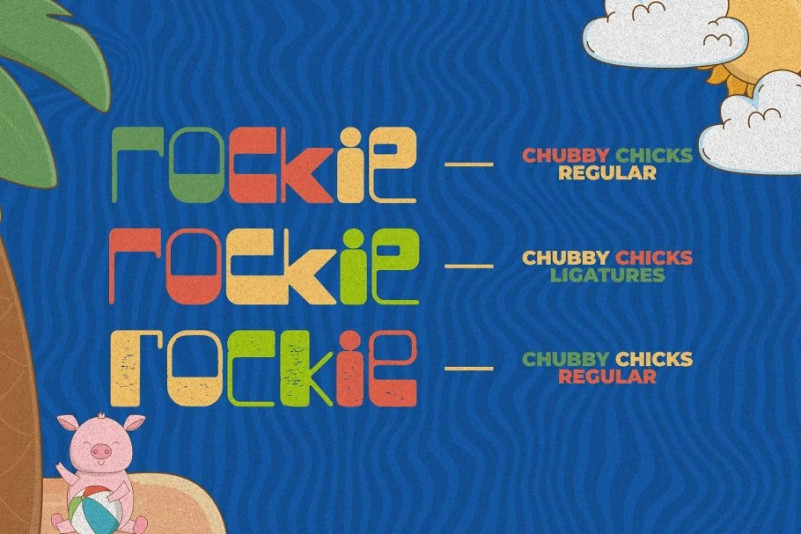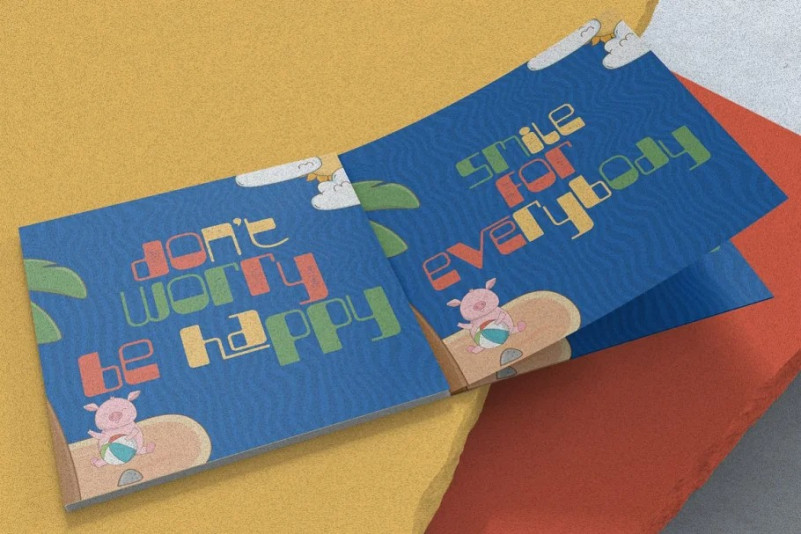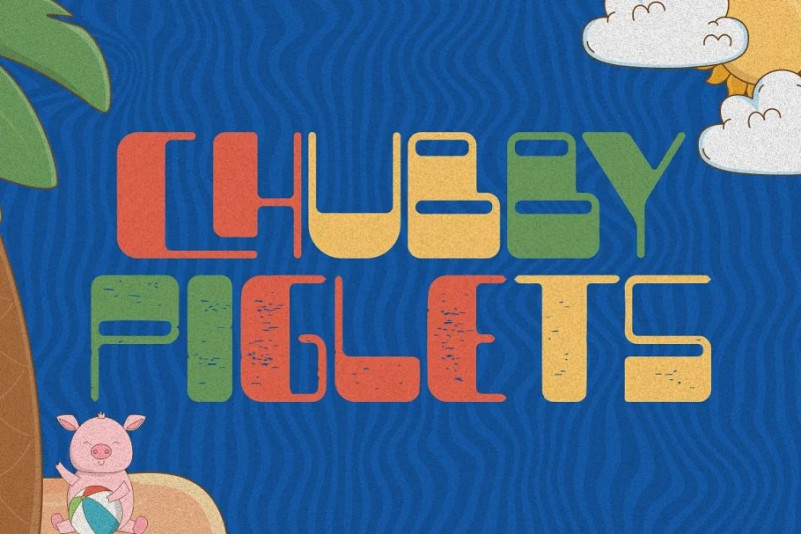
Uadohe Font
Uadohe Font is a chunky, comic, and cartoon display font. With its neat and joyful personality, this font will enhance any project you wish to create!